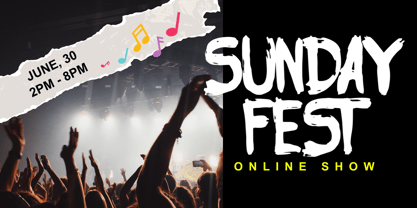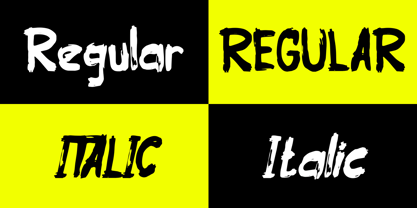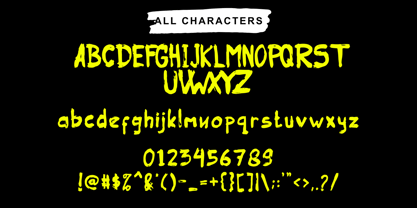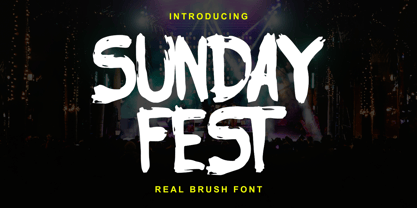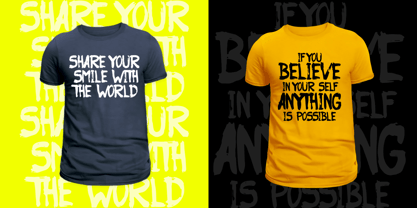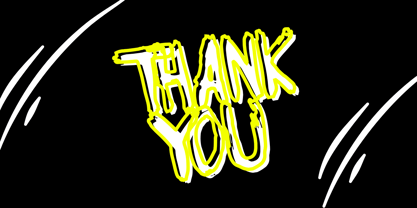
Sunday Fest
by Andrey Font Design
The Sunday Fest Font Family was designed by Stephanus Prabowo and published by Andrey Font Design. Sunday Fest contains 2 styles and family package options.
You are introducing a genuine brush font imbued with the authenticity of a handmade, natural brush, ideal for adding depth to your creative endeavors. Harness the power of this versatile typeface to inject a dose of dynamism and organic flair into your design projects, achieving a look that artfully straddles the line between edgy and earthy.